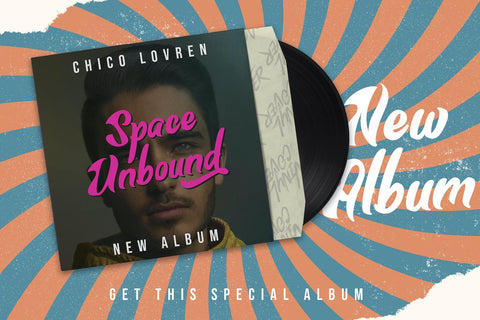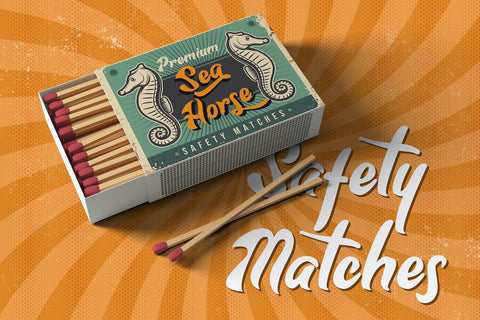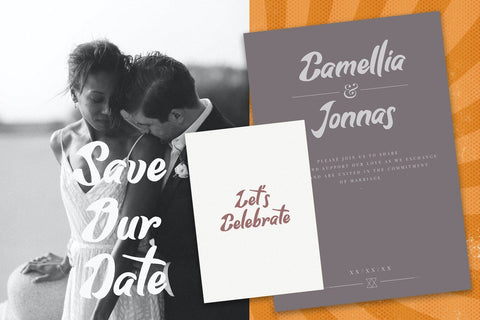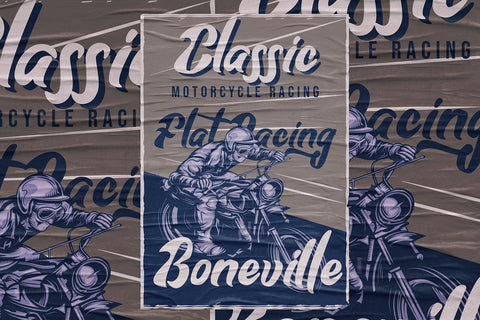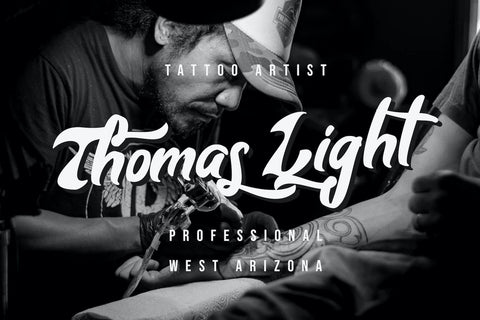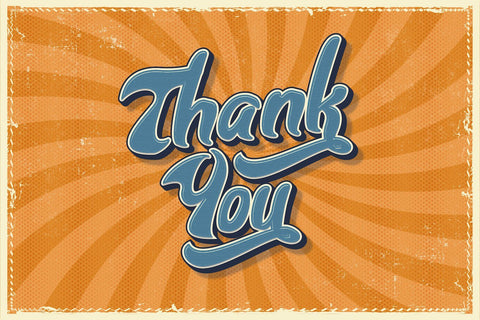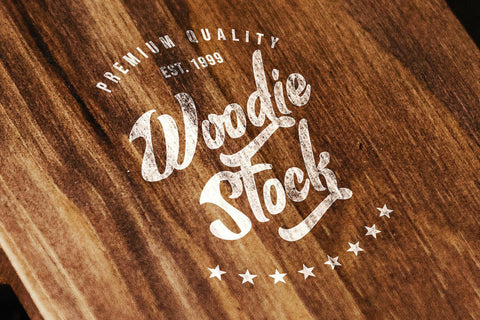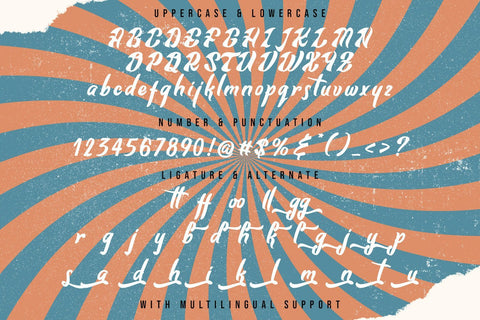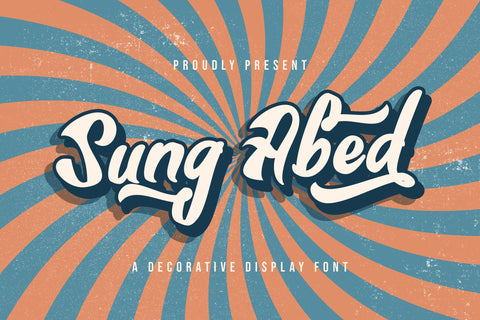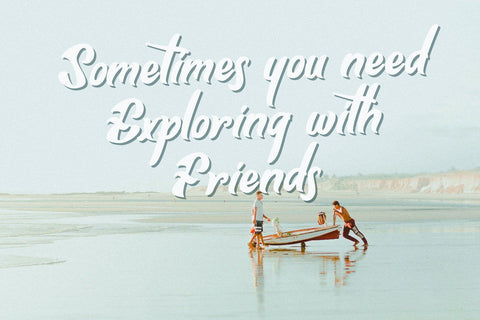
Sung Abed - Decorative Display Font
Introducing Sung Abed - Decorative Display Font
Sung Abed is a unique, stylish and elegant decorative font. This typeface will look truly outstanding in a wide range of contexts.